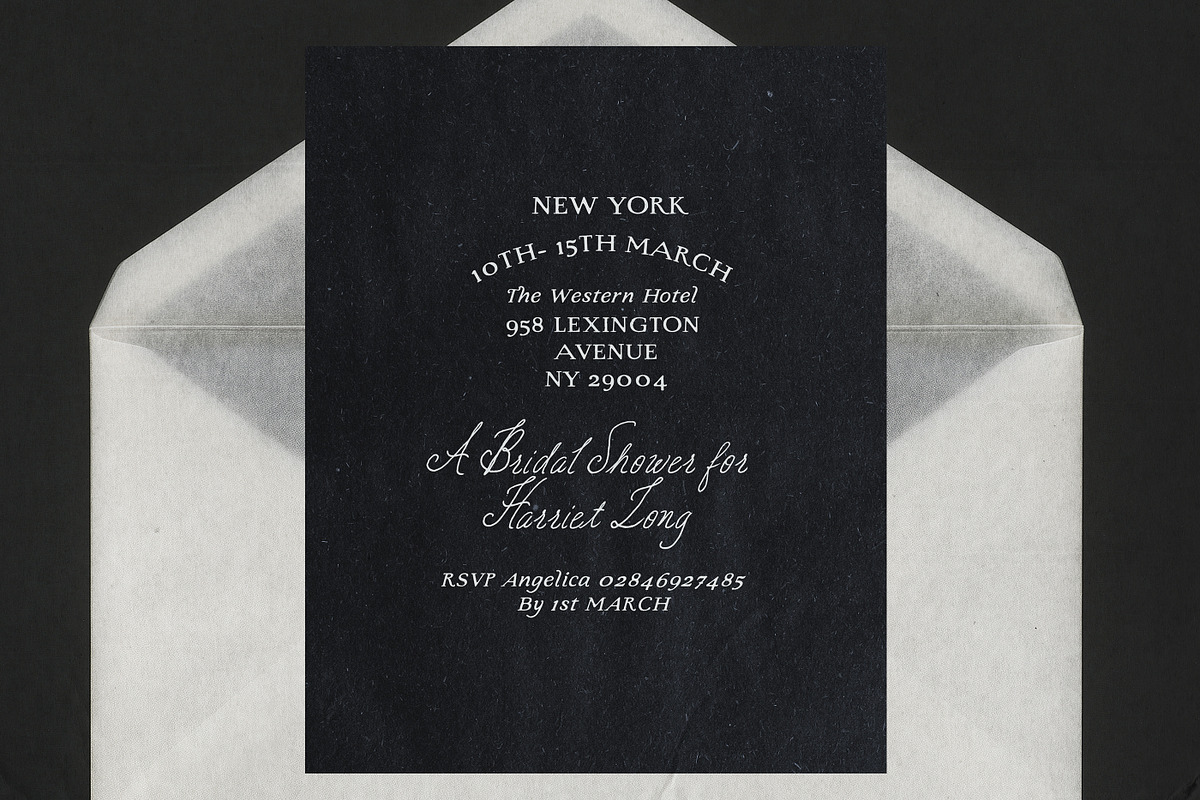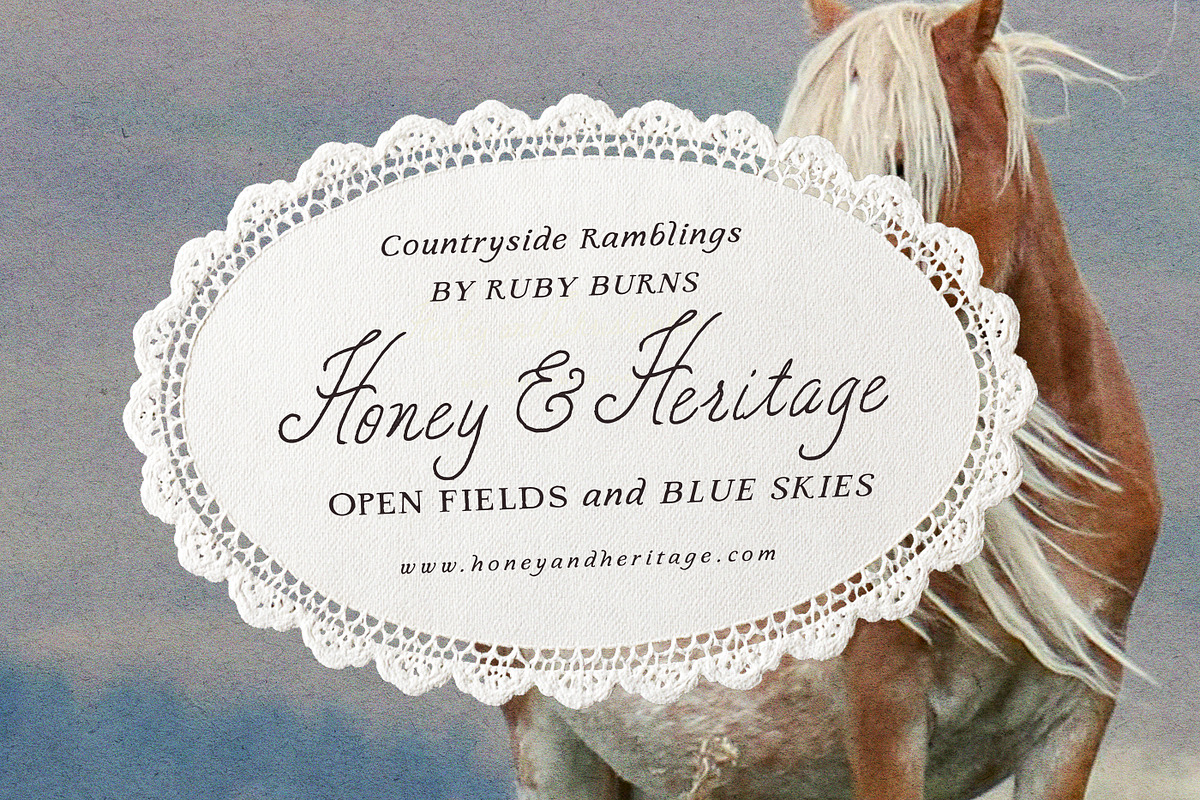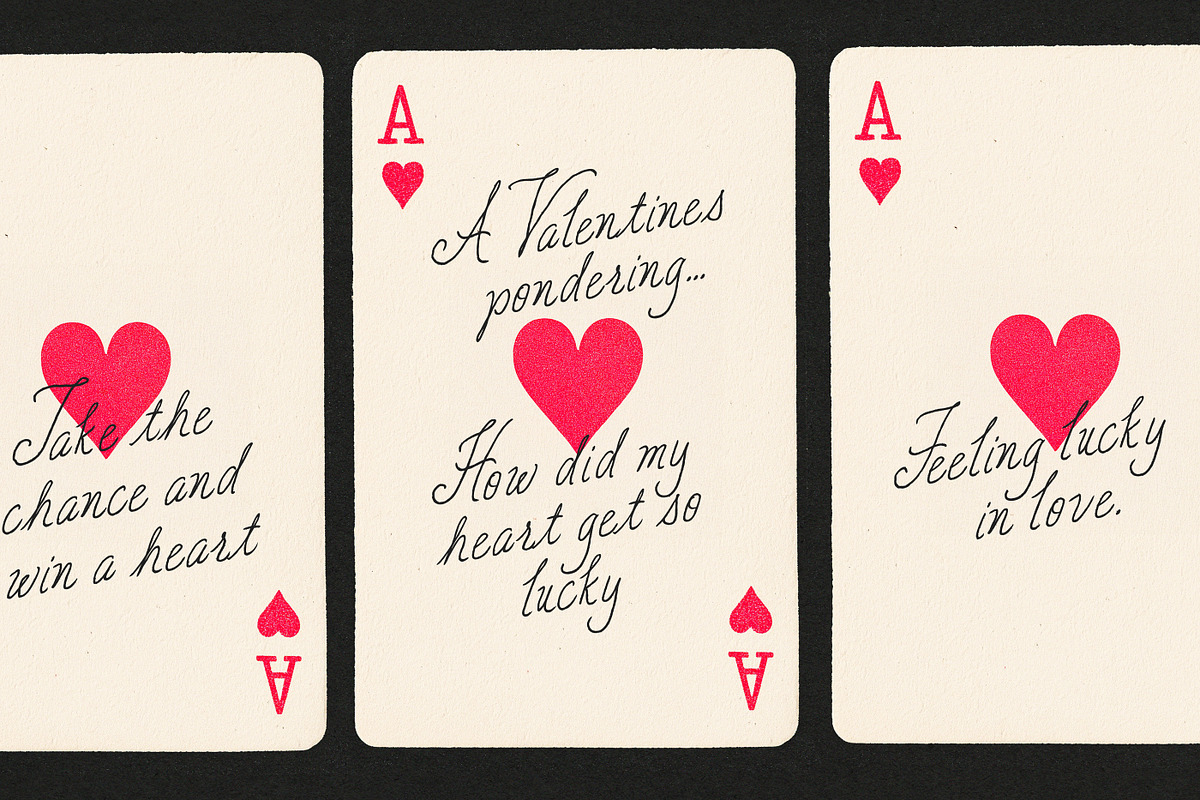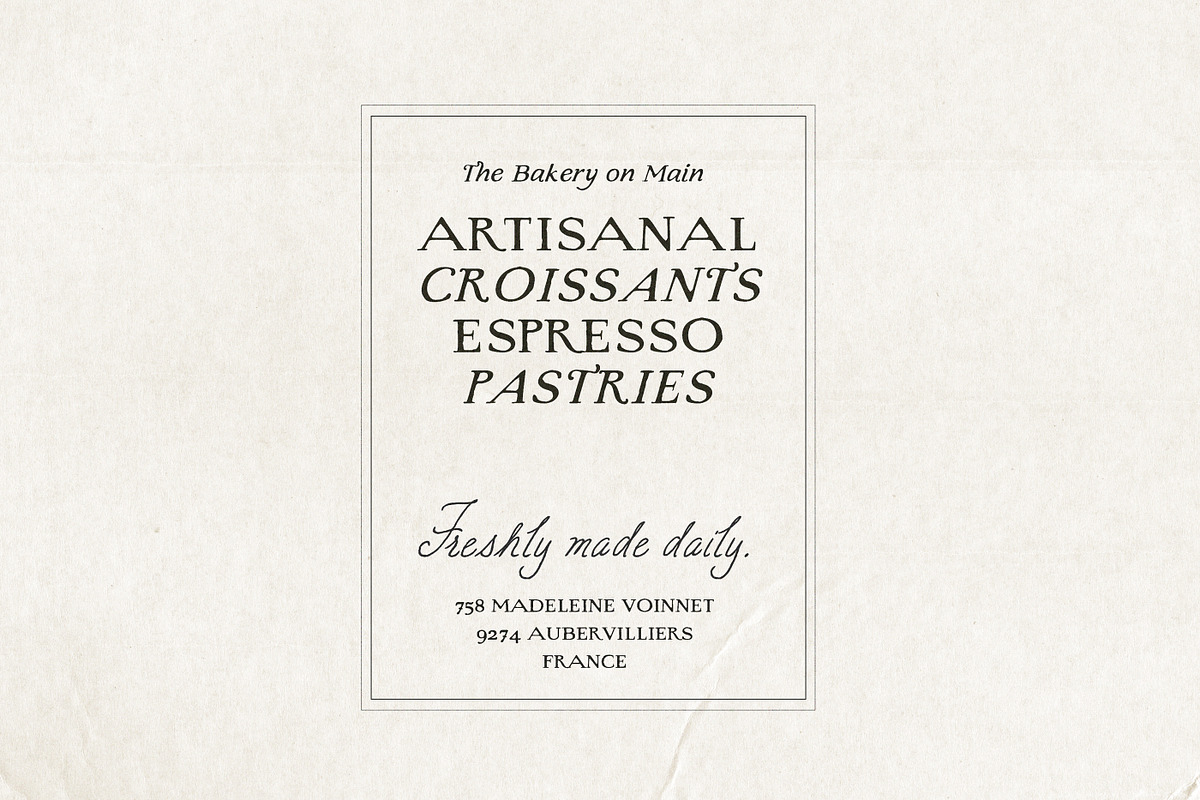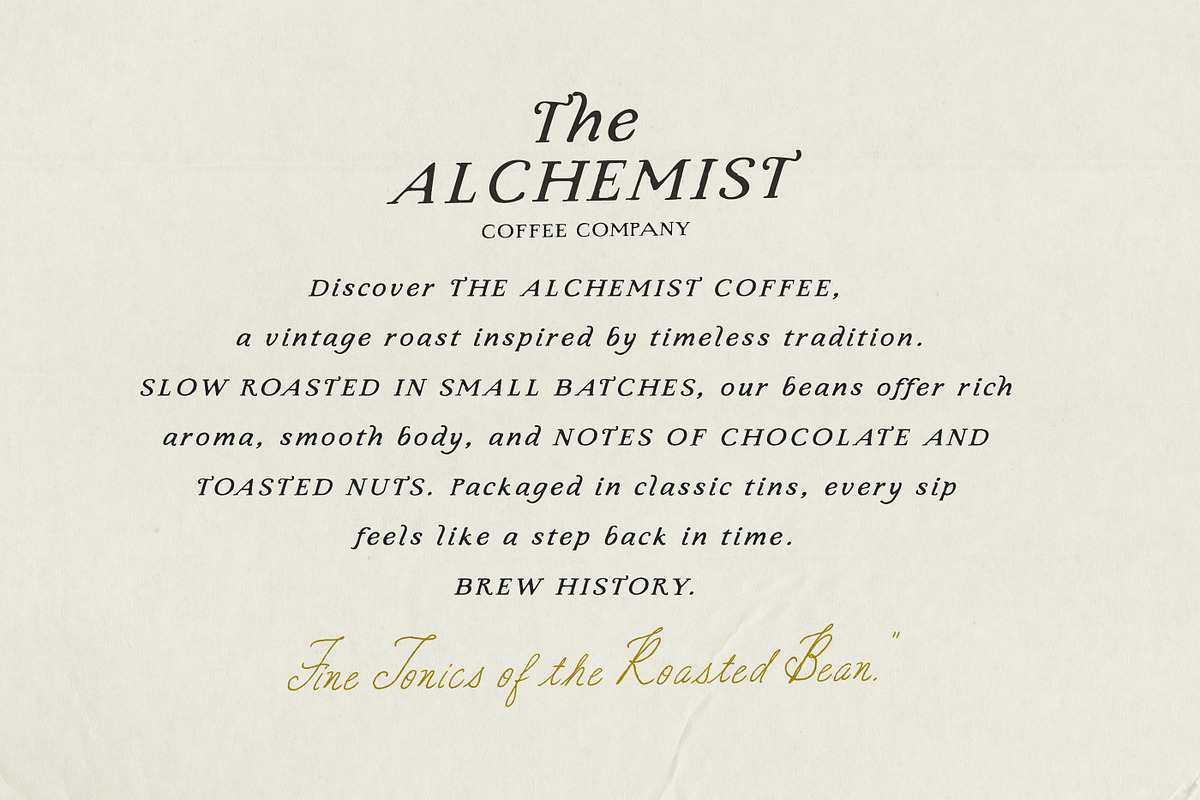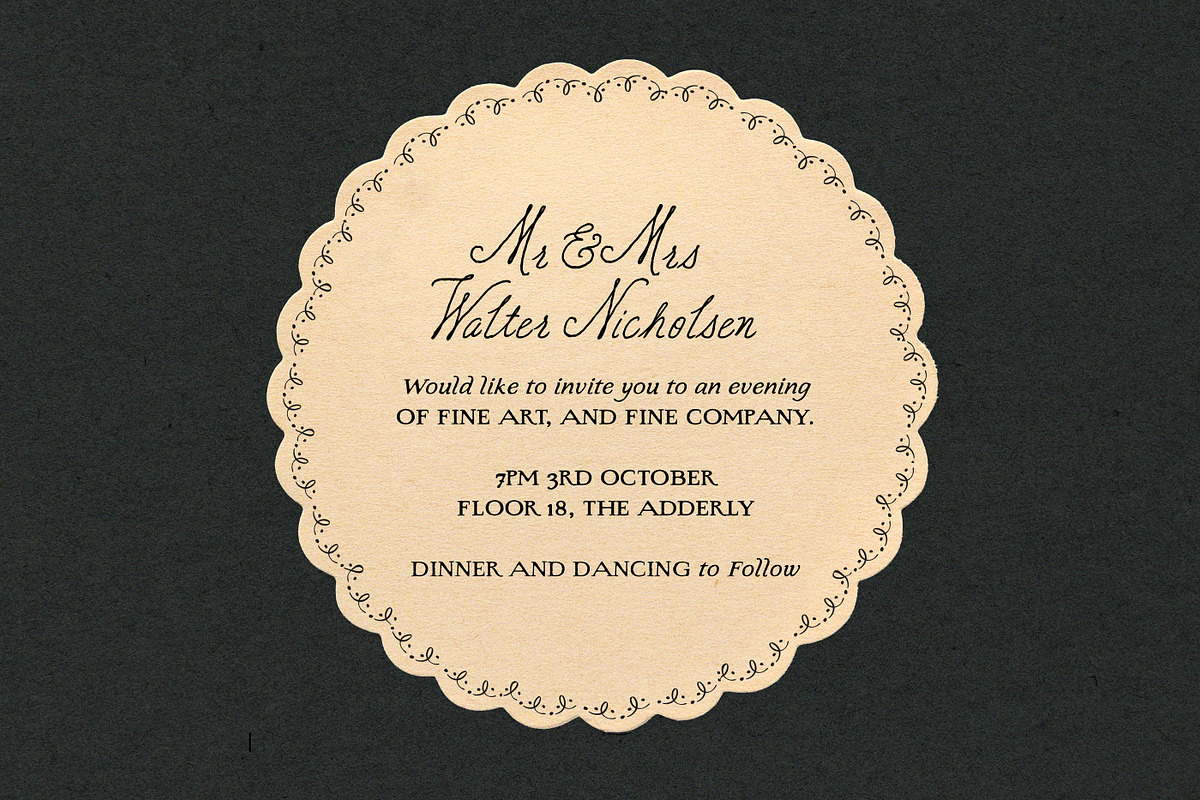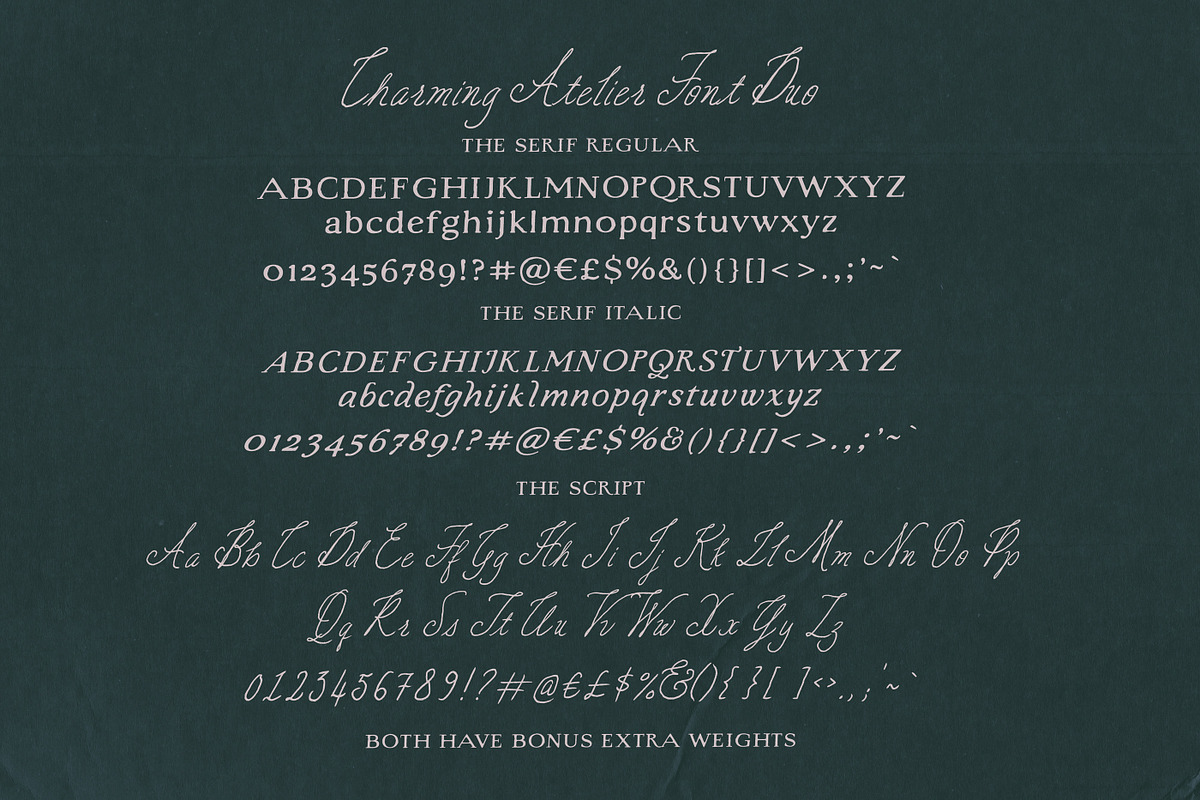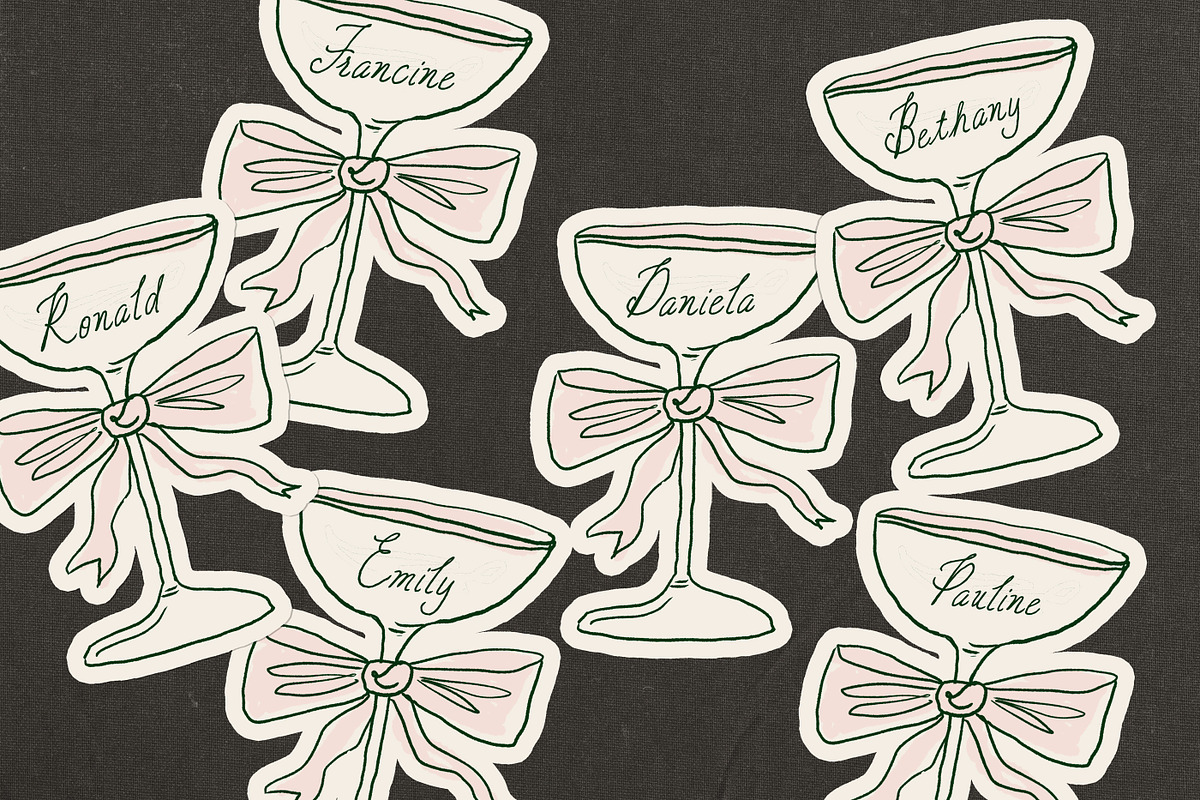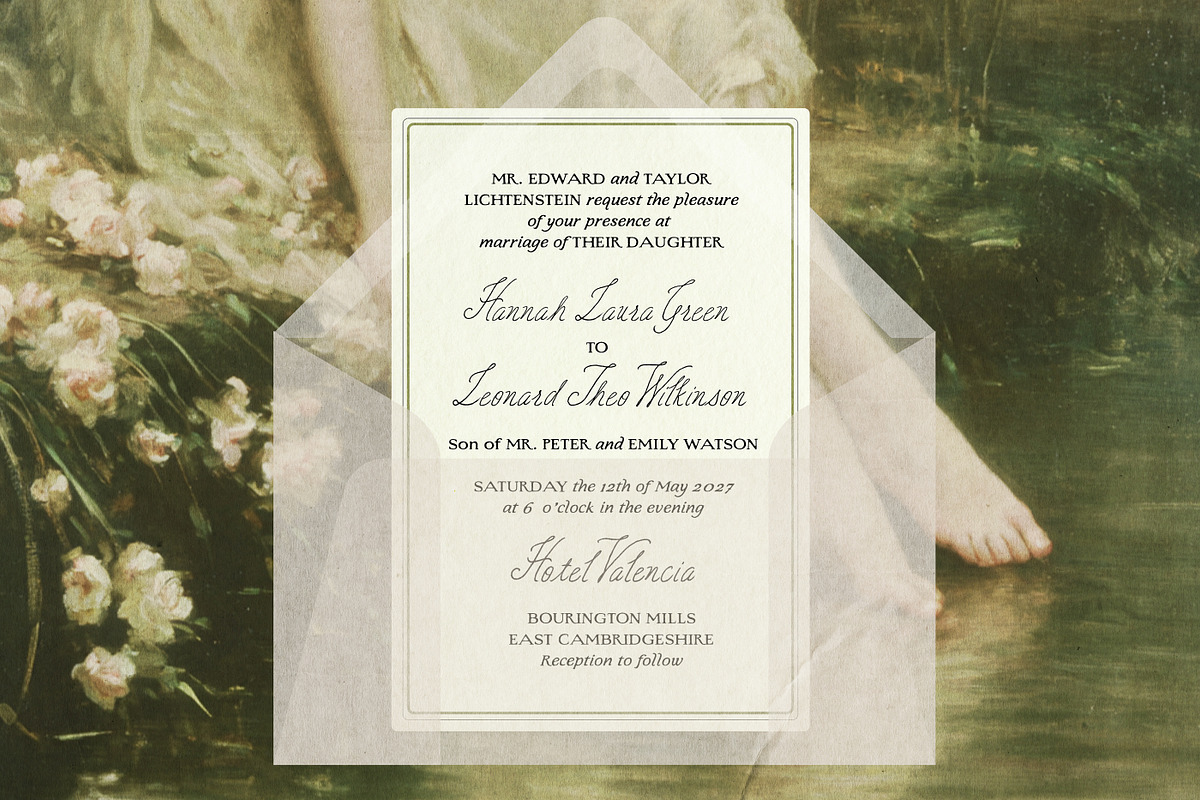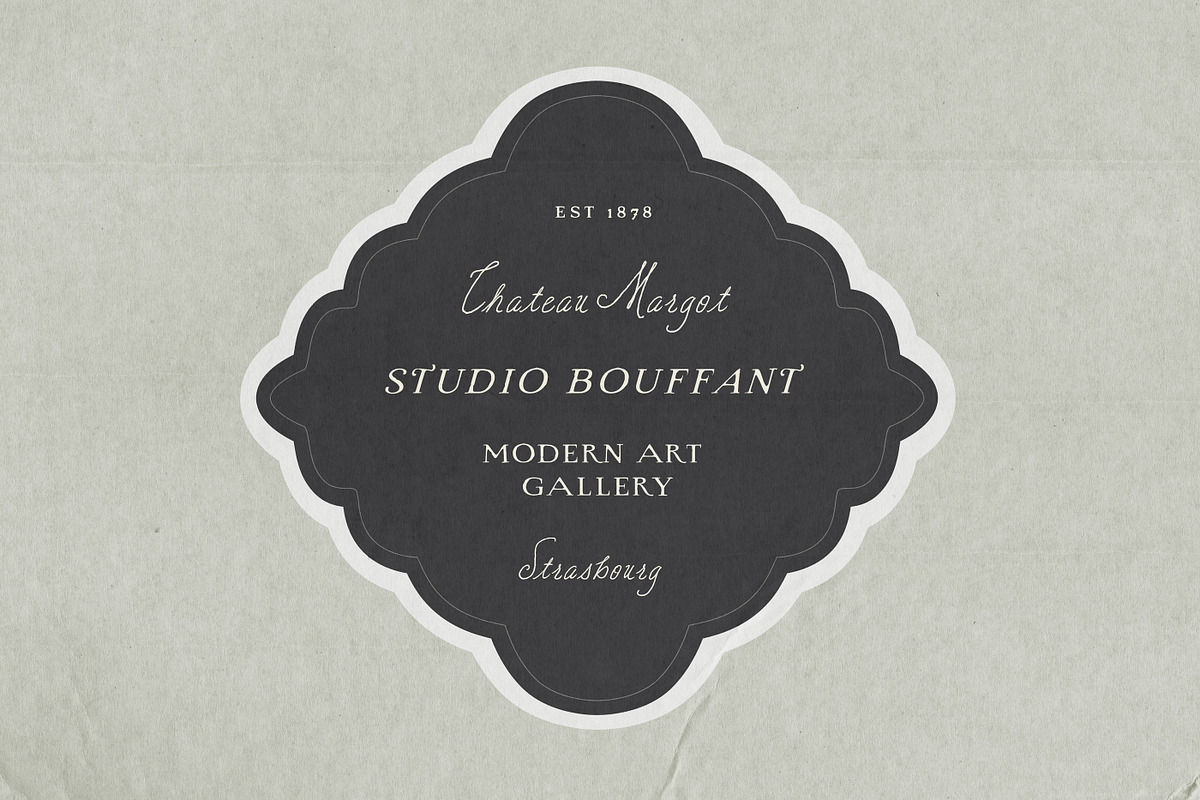
The Charming Atelier Font Duo
Say hello to The Charming Atelier Font Duo :)
A lovingly curated font duo designed to capture the romance of old-world press printing and the warmth of handcrafted detail. The duo couples a rough-edged ,vintage 'printpress' style serif with a sophisticated and poised handlettered script, a pairing intended for timeless elegance to meet organic charm.
The serif is designed to reflect traditional vintage letterpress, with rough wobbly edging and bleed. It feels old-worldly, yet sophisticated - the kind of type you’d find pressed into fine cotton paper or embossed on heirloom stationery.
Complementing it is an ornamental handwritten script, full of movement and personality. Natural curves and slightly imperfect strokes give it an authentic, human touch — as though it were inked lovingly by hand. Together, the two create a harmonious balance: structured and soft, polished and personal.
Perfect for delicate wedding invitations, vintage boutique branding and packaging, old-world editorial layouts, or social media graphics, this duo delivers instant romance and refinement.
Each of the Script and Serif come in various handy weight variants to better suit your projects needs.
Handy Design tip: Using various difference letter-spacings in the same typographic piece can achieve some beautiful classic vintage typography layouts.